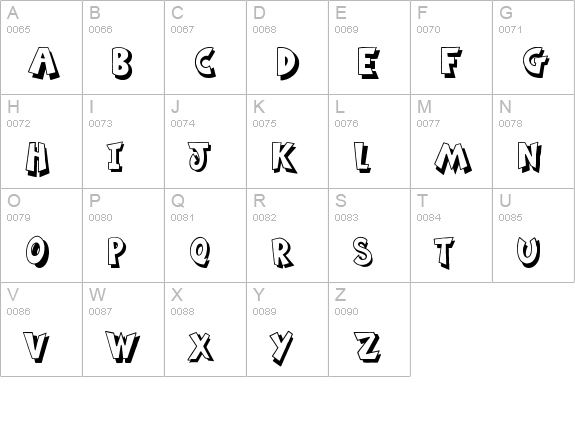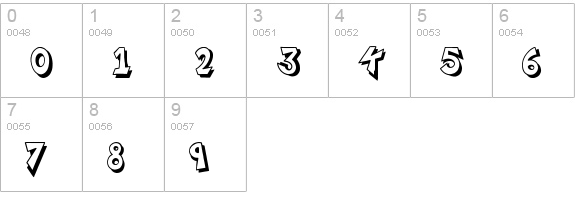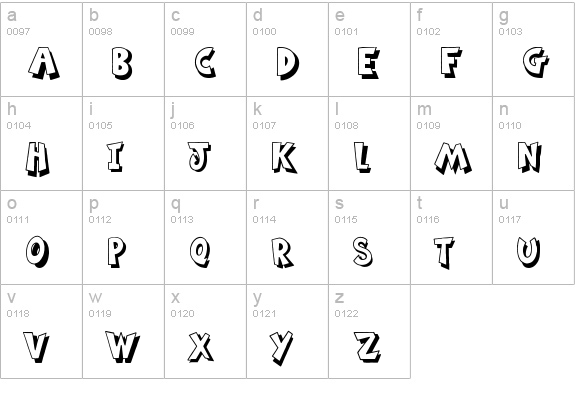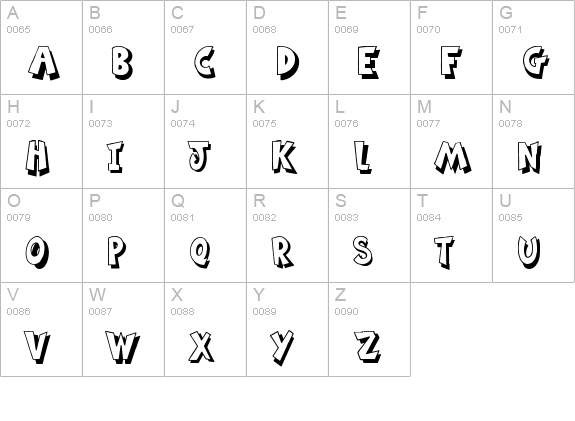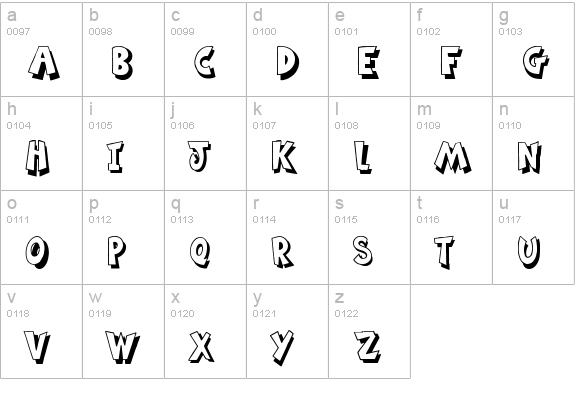
The Looney Tunes font is a charming and whimsical typeface that brings back the nostalgic memories of your favorite cartoon characters. This playful font captures the essence of the beloved Looney Tunes universe, with its bold and lively letterforms that seem to dance across the page. With its rounded edges and exaggerated curves, the Looney Tunes font exudes a sense of fun and energy, just like Bugs Bunny, Daffy Duck, and the rest of the gang. Each letter is carefully crafted to resemble the iconic characters, making it a perfect choice for any project that wants to evoke the spirit of these timeless cartoons. And the best part? The Looney Tunes font is completely free! You can download it at FontsMarket.com, a trusted source for high-quality fonts. Whether you're designing a birthday invitation, creating a logo, or simply adding a touch of nostalgia to your artwork, this font is sure to bring a smile to your face. So go ahead, unleash your creativity and let the Looney Tunes font add a touch of animated magic to your designs. With its free availability and irresistible charm, it's a must-have for any fan of these iconic characters. Get ready to bring your projects to life with the Looney Tunes font - the perfect blend of classic nostalgia and contemporary design.